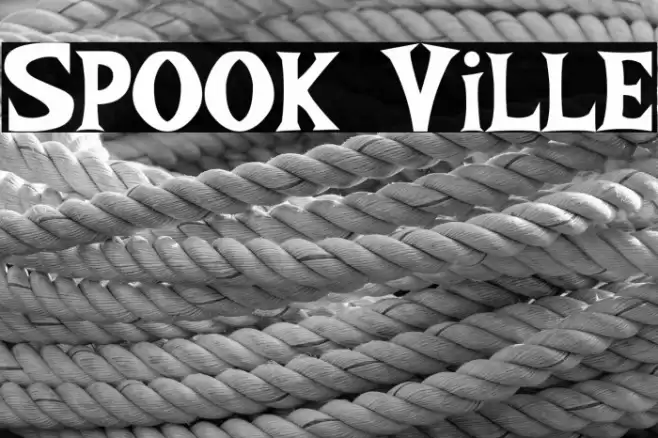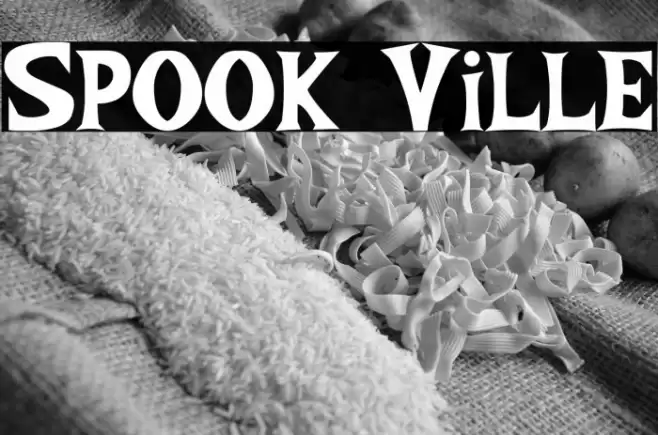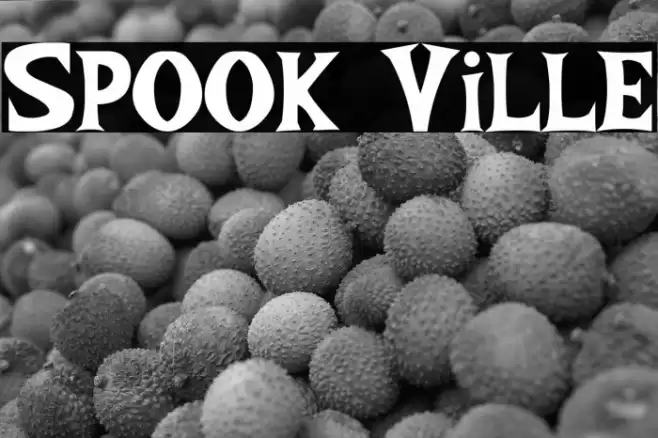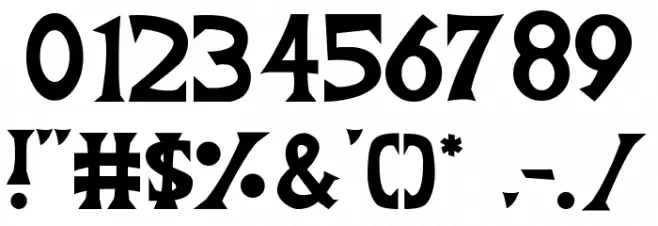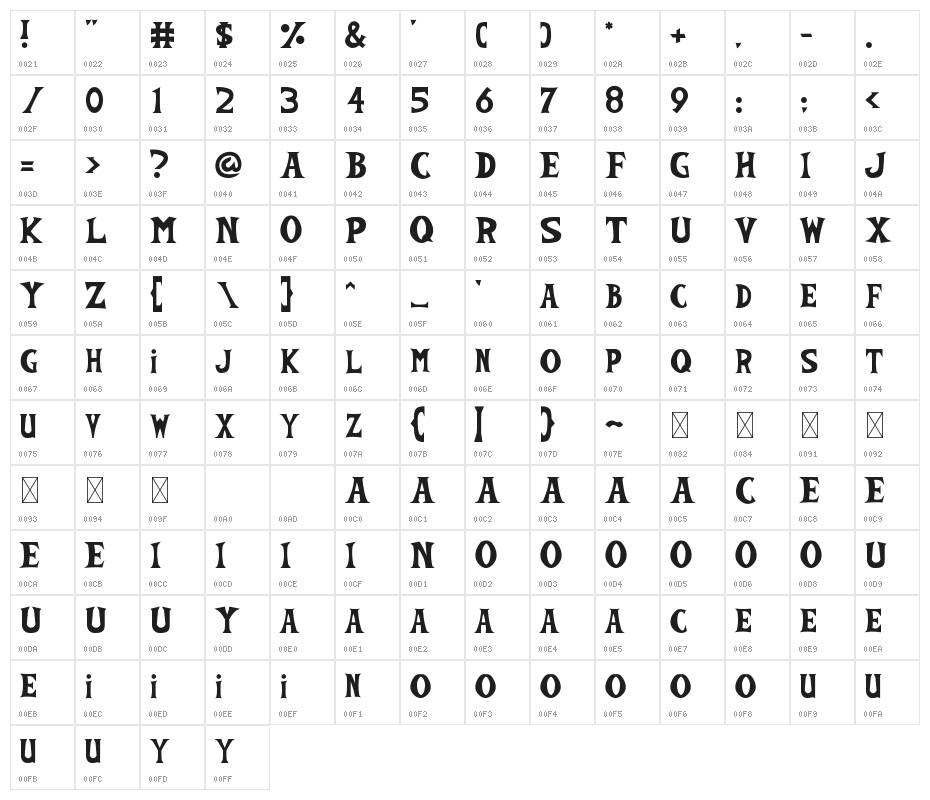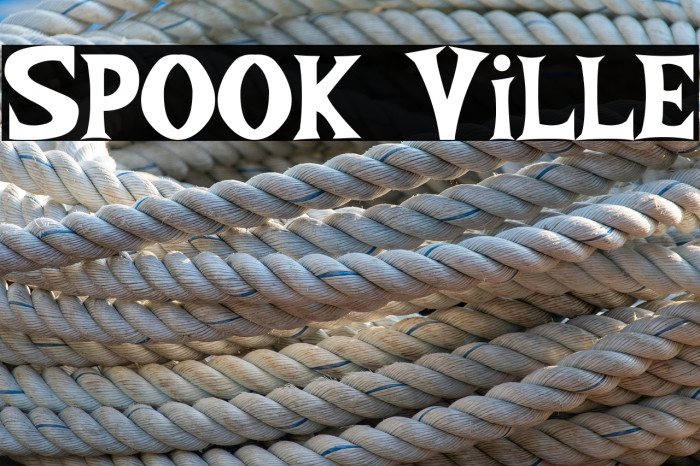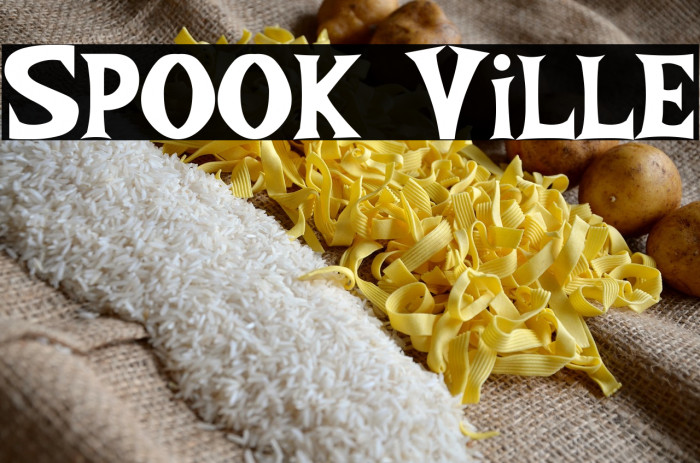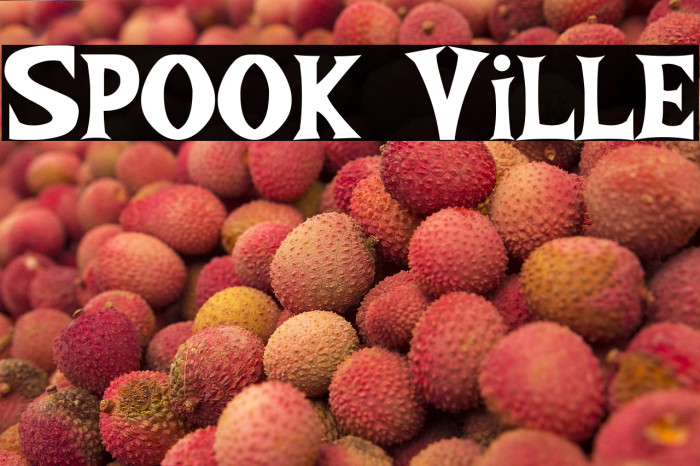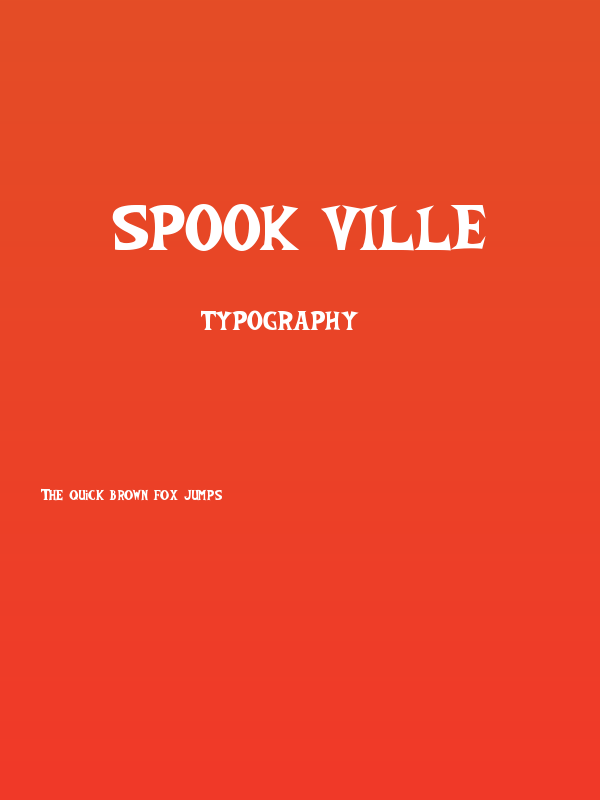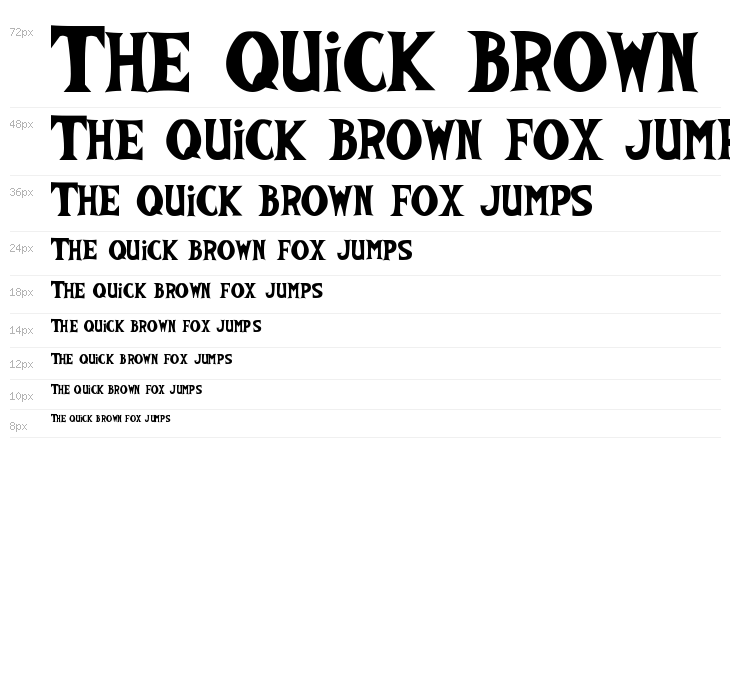
Spook Ville Font
Spook Ville Description
This font exudes a playful yet eerie vibe, perfect for themes that require a spooky or Halloween-inspired aesthetic. The characters are bold and slightly irregular, with sharp edges and pointed serifs that give them a dramatic flair. The uppercase and lowercase letters maintain a consistent style, while the numbers and special characters complement the overall design. This font is ideal for creating eye-catching headlines or titles that need to stand out with a touch of mystery and excitement.
A bold, spooky font with sharp edges and a playful, eerie style from Uncategorized fonts.
- Proposed Projects: Ideal for Halloween-themed posters, haunted house invitations, spooky event flyers, or any project needing a mysterious and playful touch.
- Contrast: High
- Overall Style: Decorative
- Use Case: Headlines, Logos